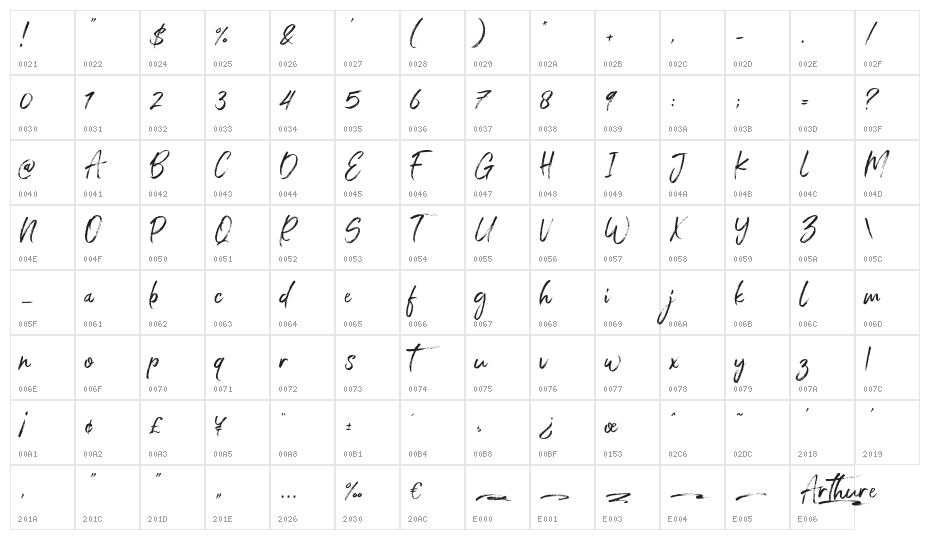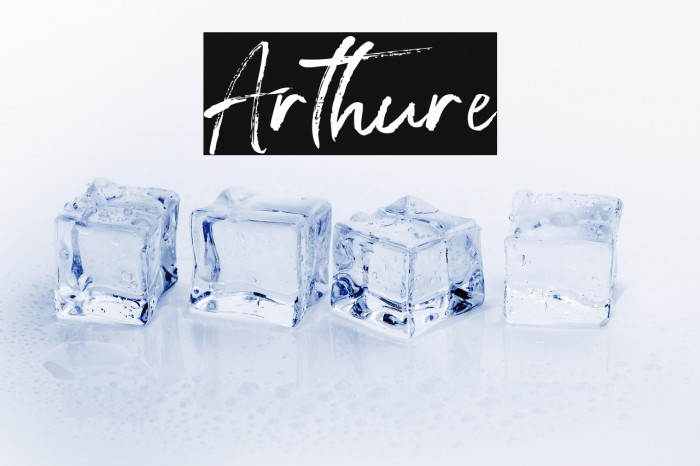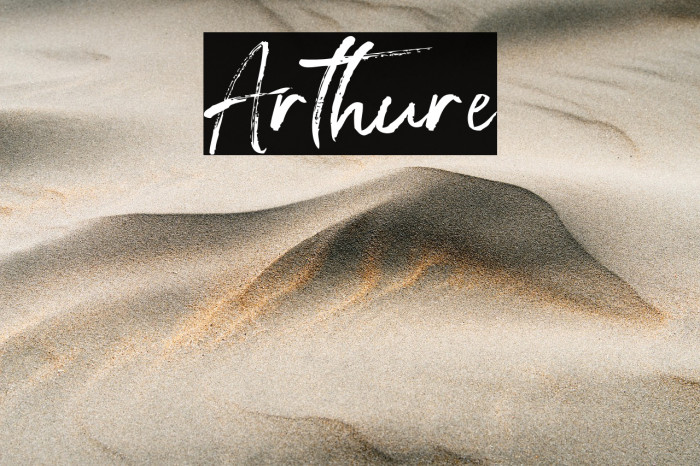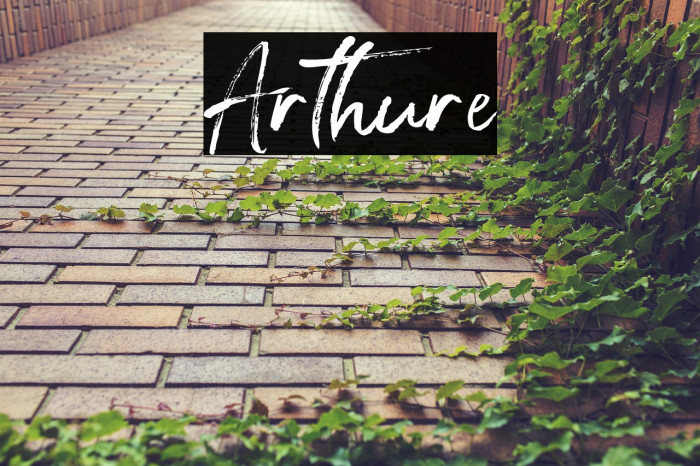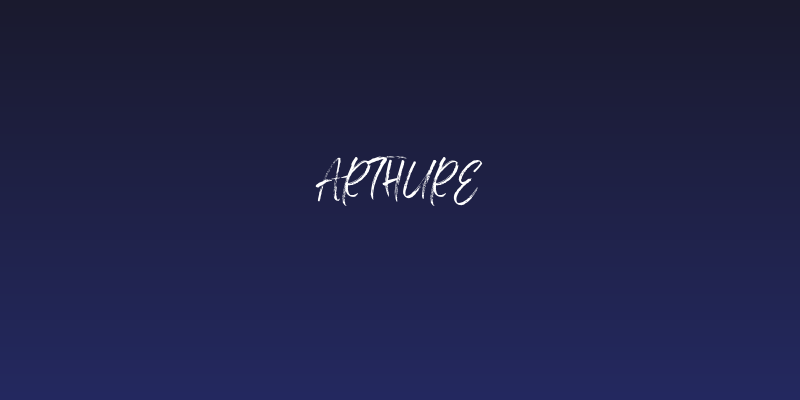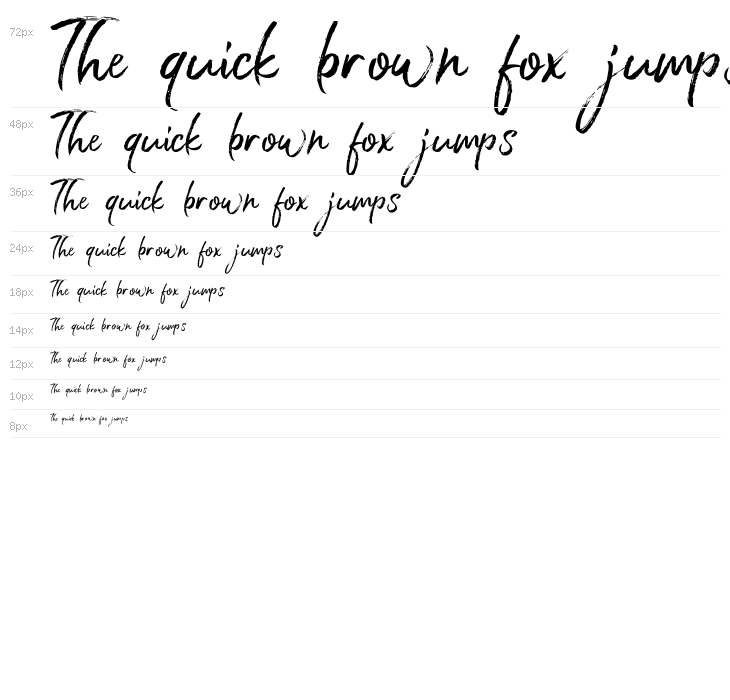
Arthure Font
Arthure Description
This font exudes a dynamic and artistic flair, characterized by its brush-like strokes and expressive, fluid lines. The letters have a hand-drawn quality, with varying thicknesses that add a sense of movement and energy. The uppercase letters are bold and prominent, while the lowercase letters maintain a consistent style, offering a cohesive look. The numerals and special characters are crafted with the same attention to detail, ensuring uniformity across the font. This font is perfect for projects that require a personal touch, such as invitations, posters, or branding materials.
| Proposed Projects | Ideal for creative projects like invitations, posters, and branding materials. |